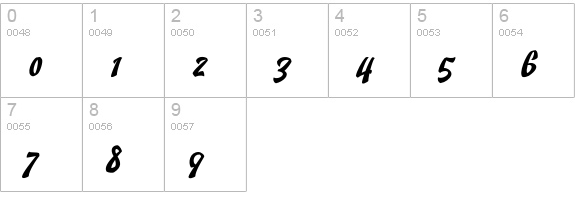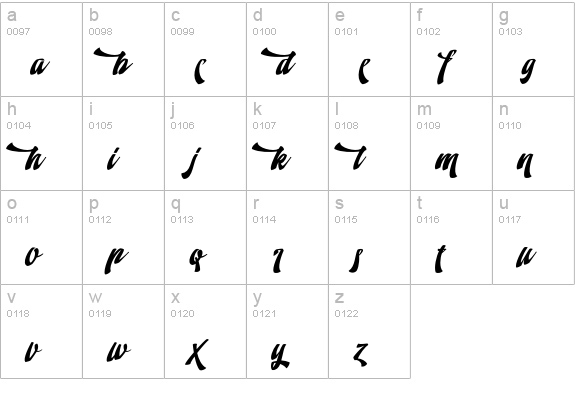
Doedel Alternate 2 Multiple font is a unique and versatile typeface that offers a playful and artistic flair to any design project. This font features a charming handwritten style with alternate characters that add a touch of whimsy and creativity. Perfect for adding a personal touch to invitations, posters, logos, and more, Doedel Alternate 2 Multiple font is a must-have for any designer looking to make a statement. Best of all, this font is available for free download at FontsMarket.com. Simply head over to the website to access this delightful typeface and start incorporating it into your designs today. Don't miss out on the opportunity to enhance your projects with the charm and versatility of Doedel Alternate 2 Multiple font – download it for free now!